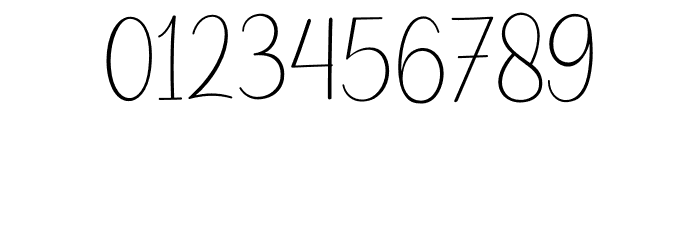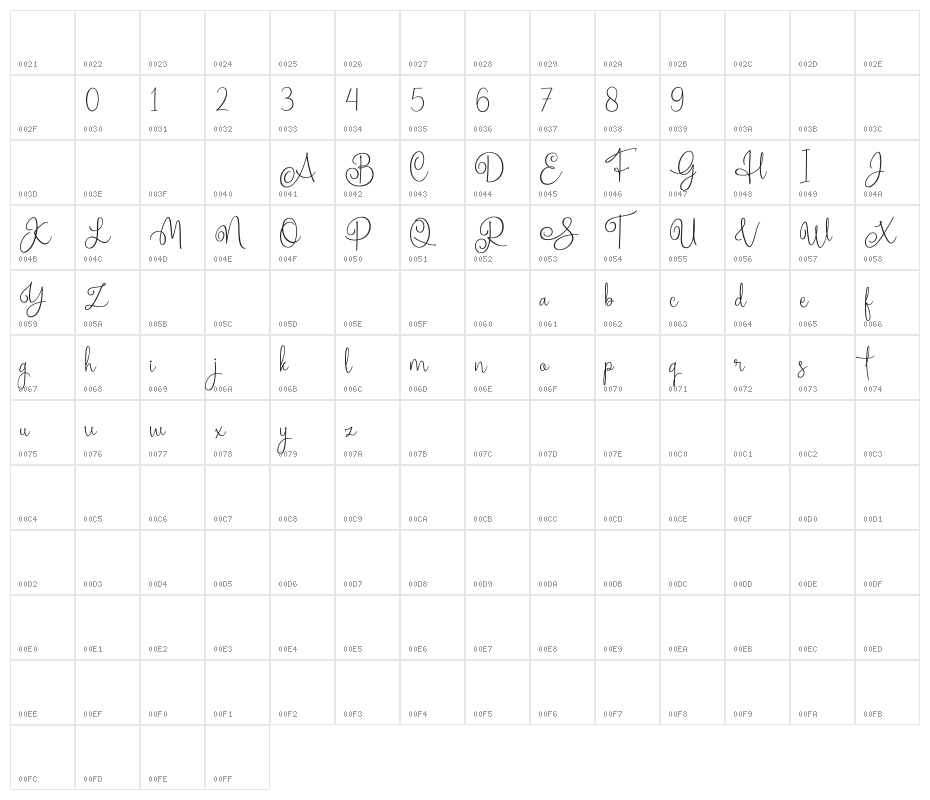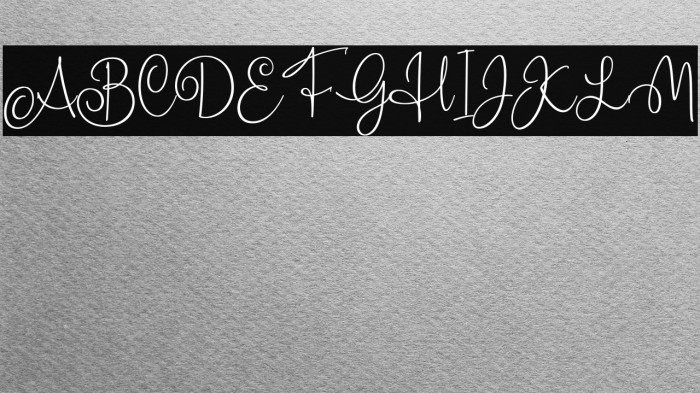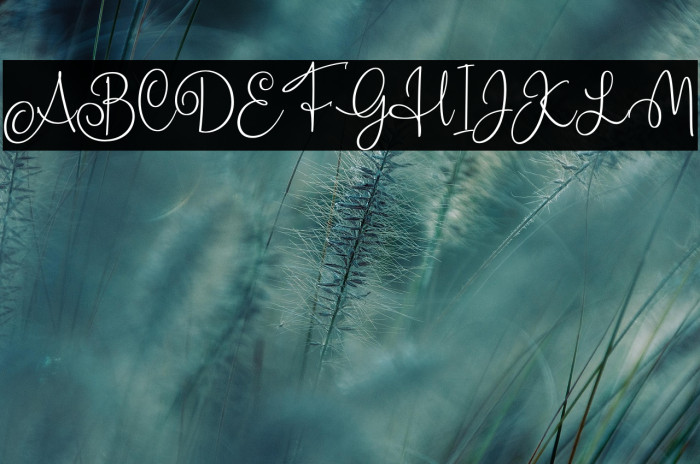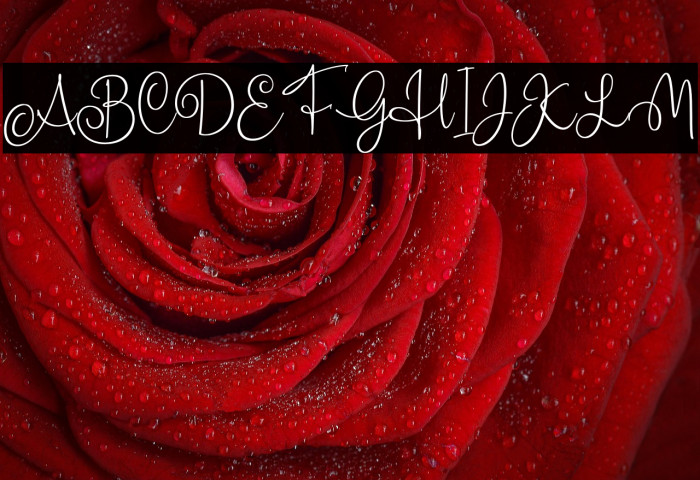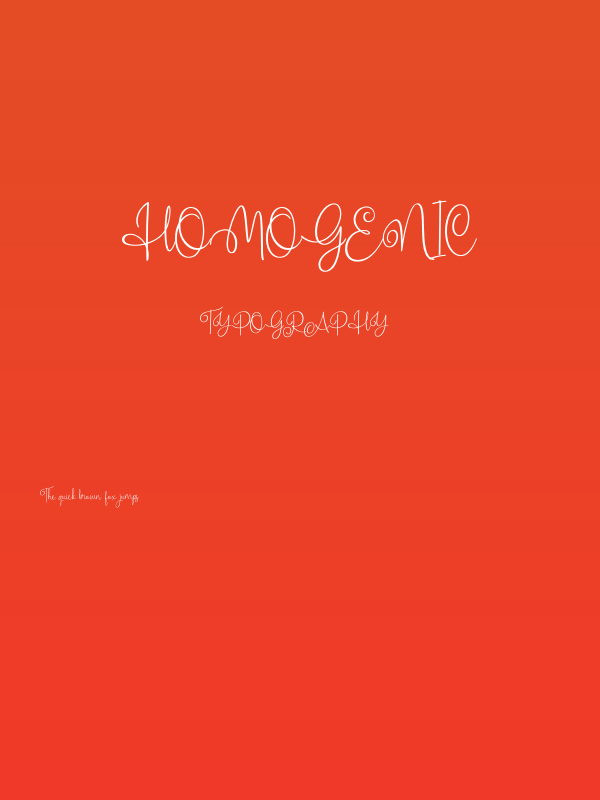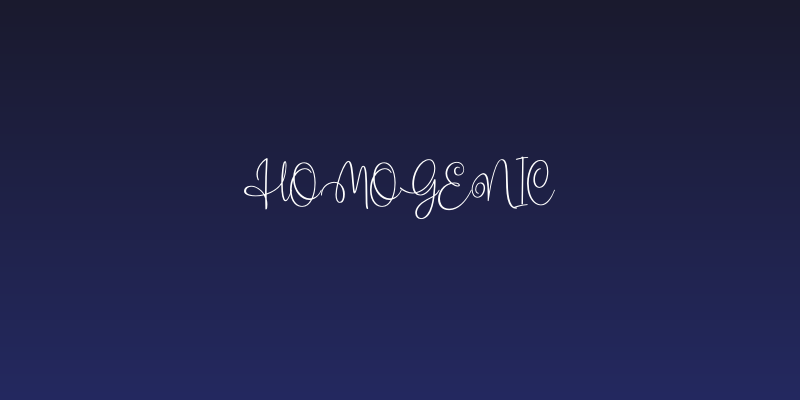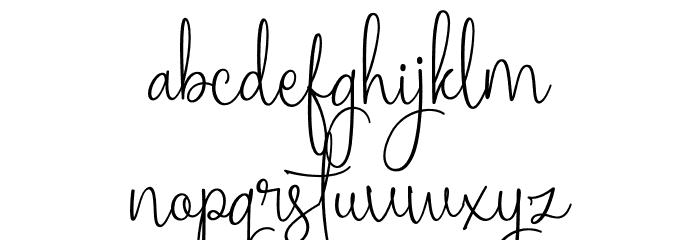
Homogenic Font
Homogenic Description
This font features an elegant and flowing script style, characterized by its delicate curves and loops. The uppercase letters are ornate, with intricate swirls that add a touch of sophistication. The lowercase letters maintain a consistent flow, enhancing readability while retaining a stylish flair. The numerals are clear and distinct, complementing the overall aesthetic. This font exudes a sense of grace and charm, making it suitable for projects that require a personal and artistic touch.
| Proposed Projects | Ideal for wedding invitations, greeting cards, branding, and logo design where a personal and artistic touch is desired. |